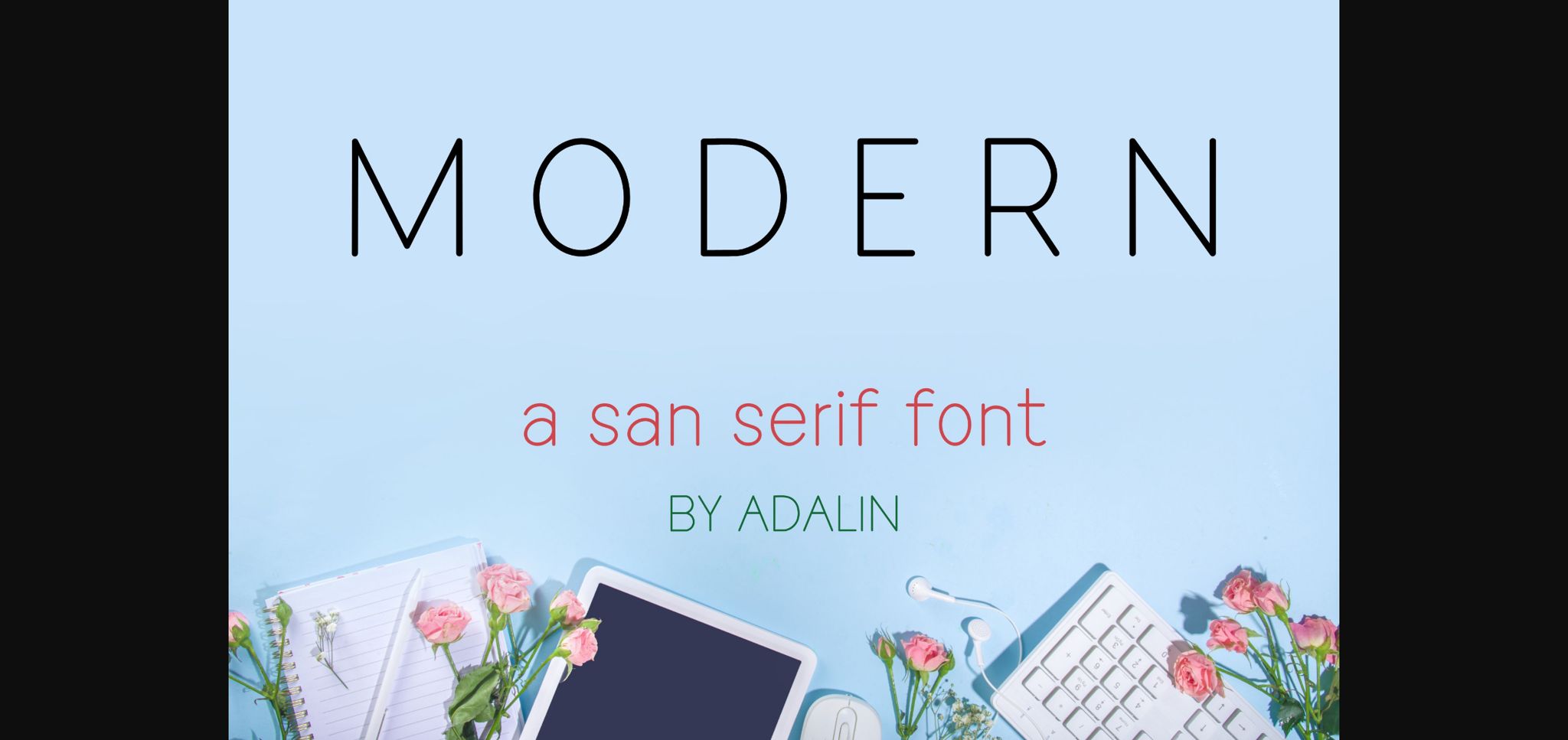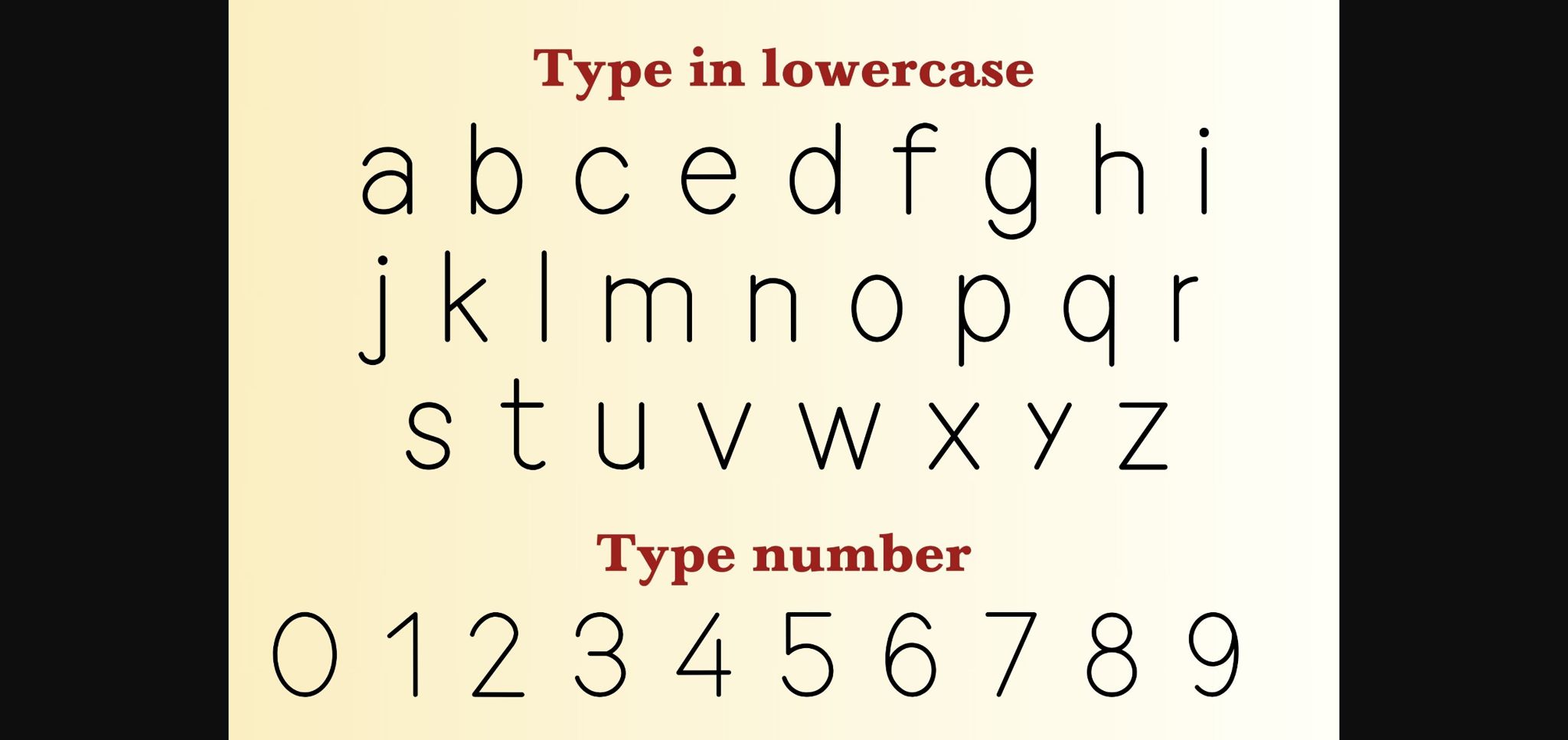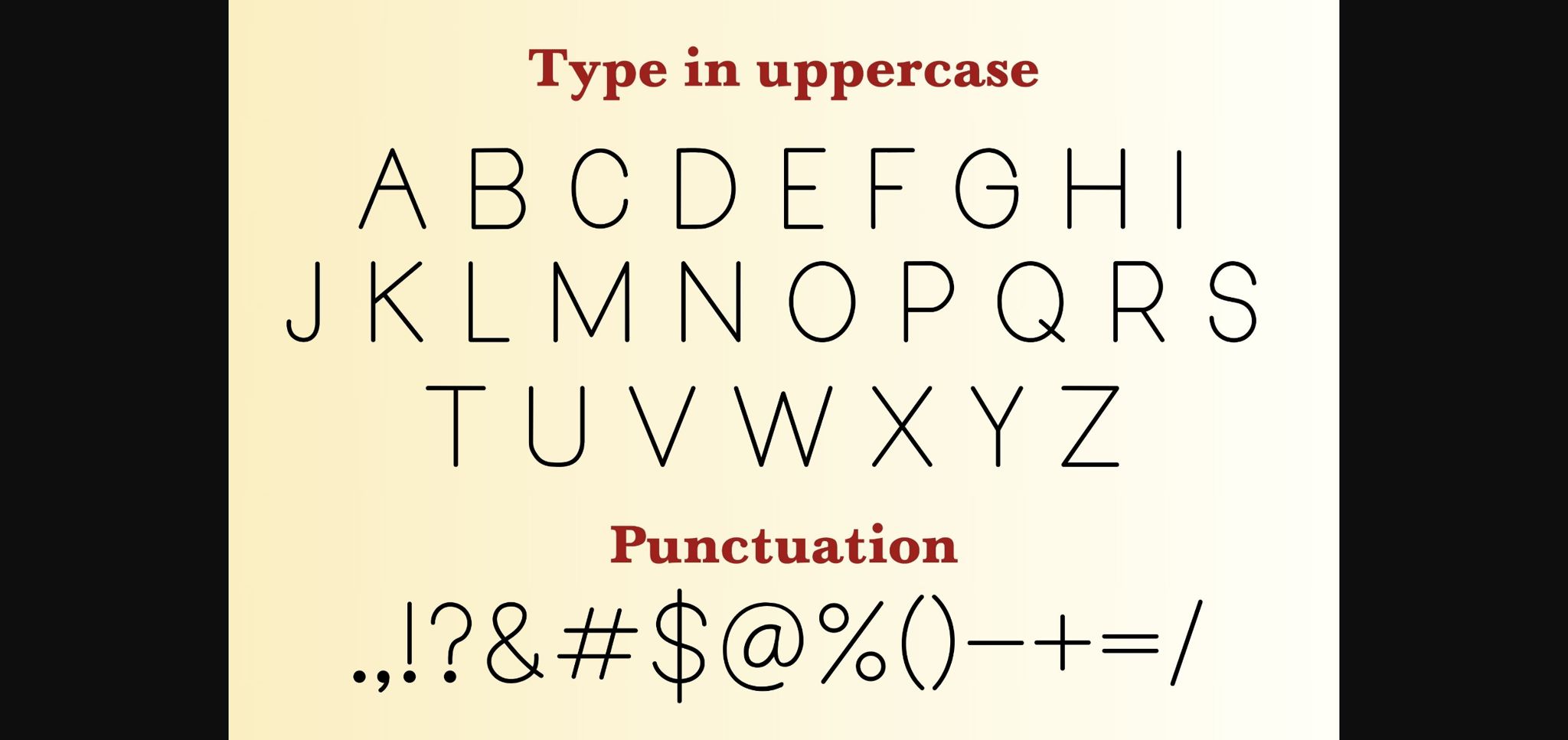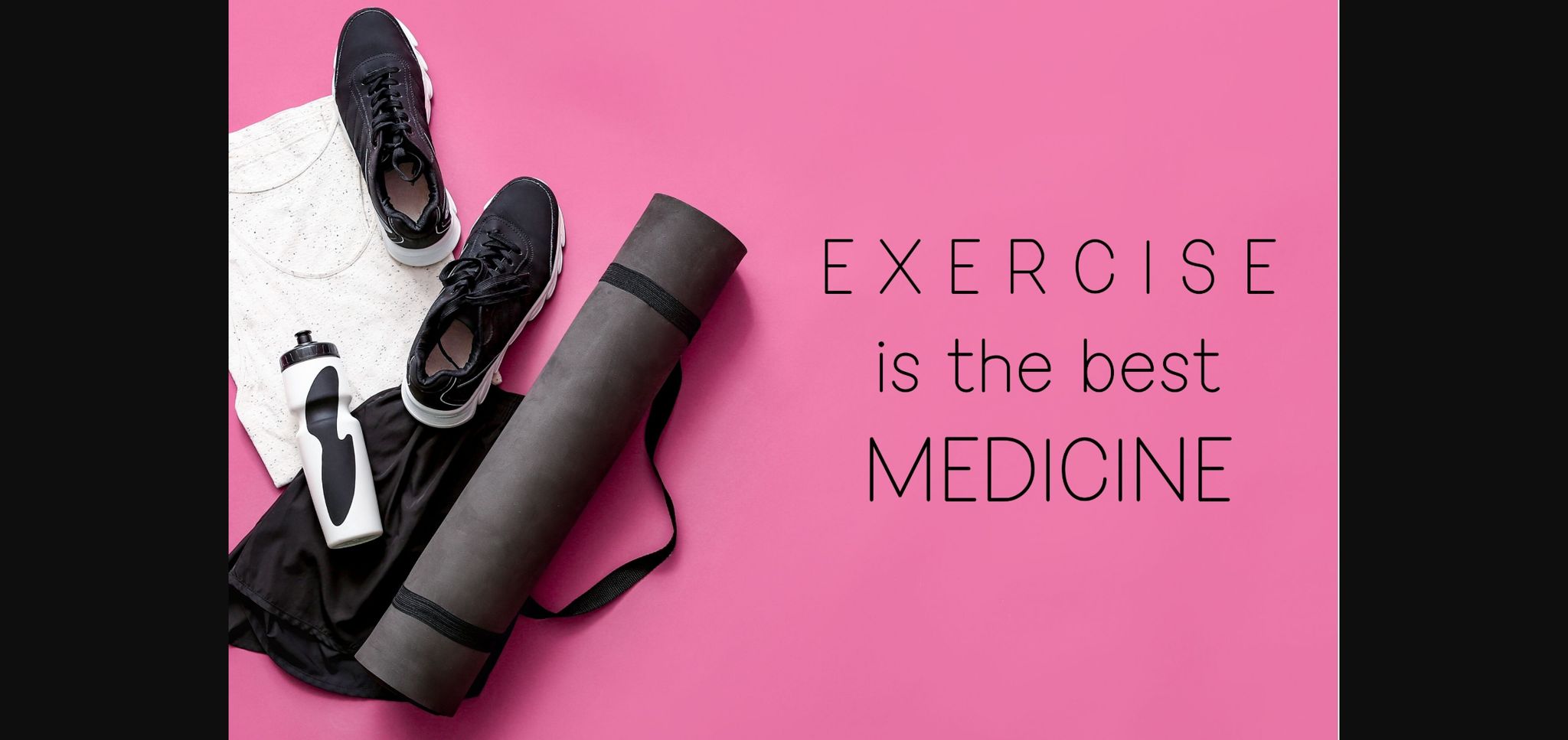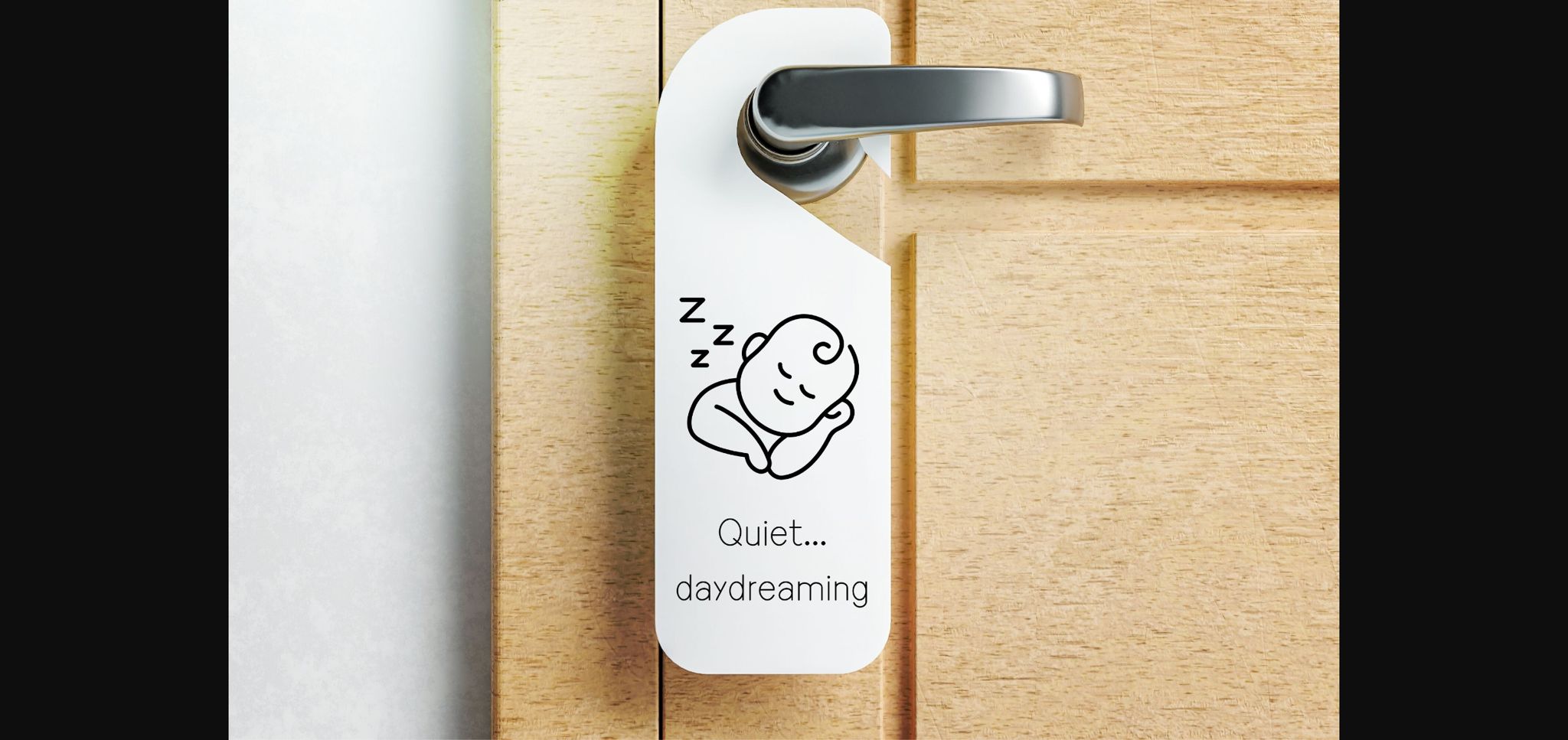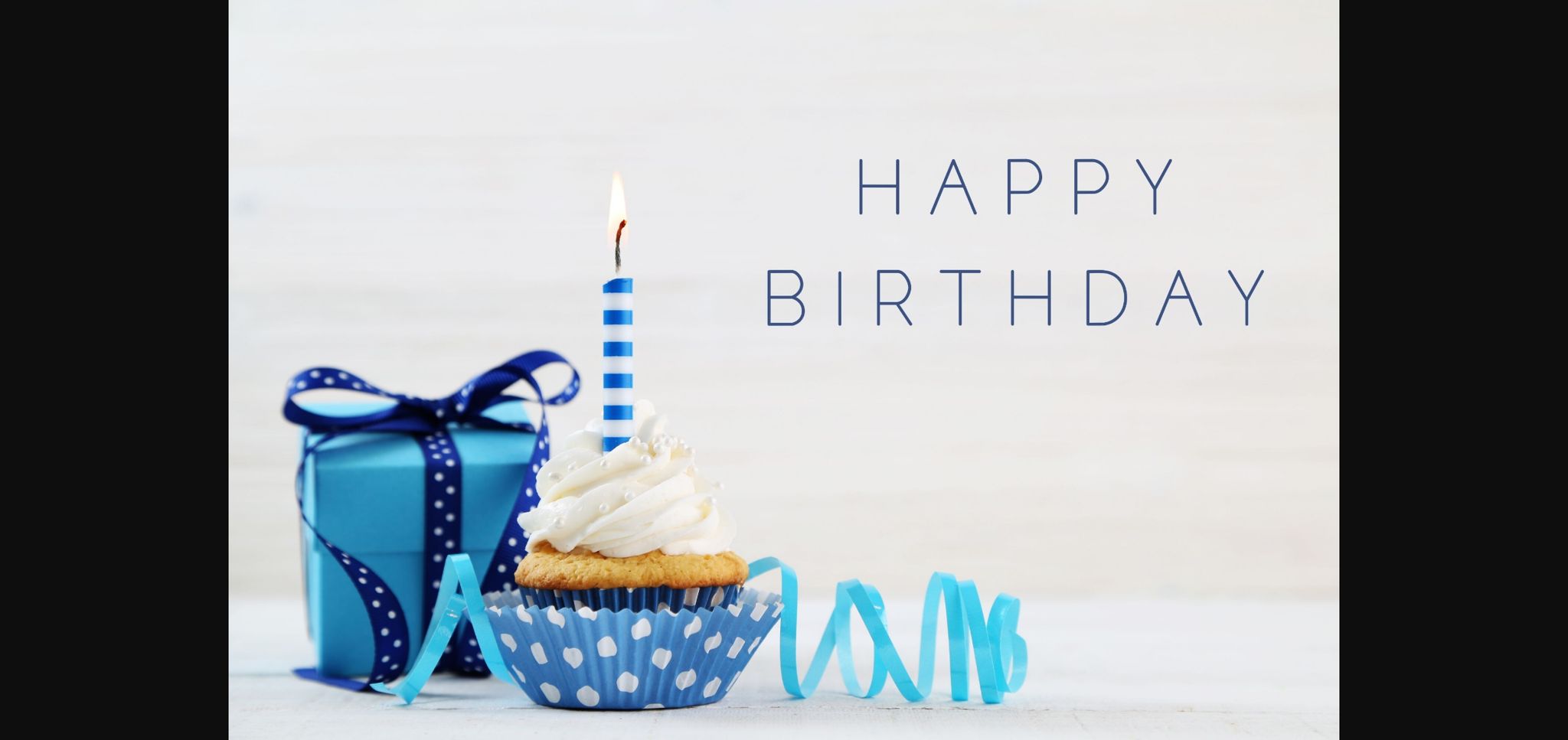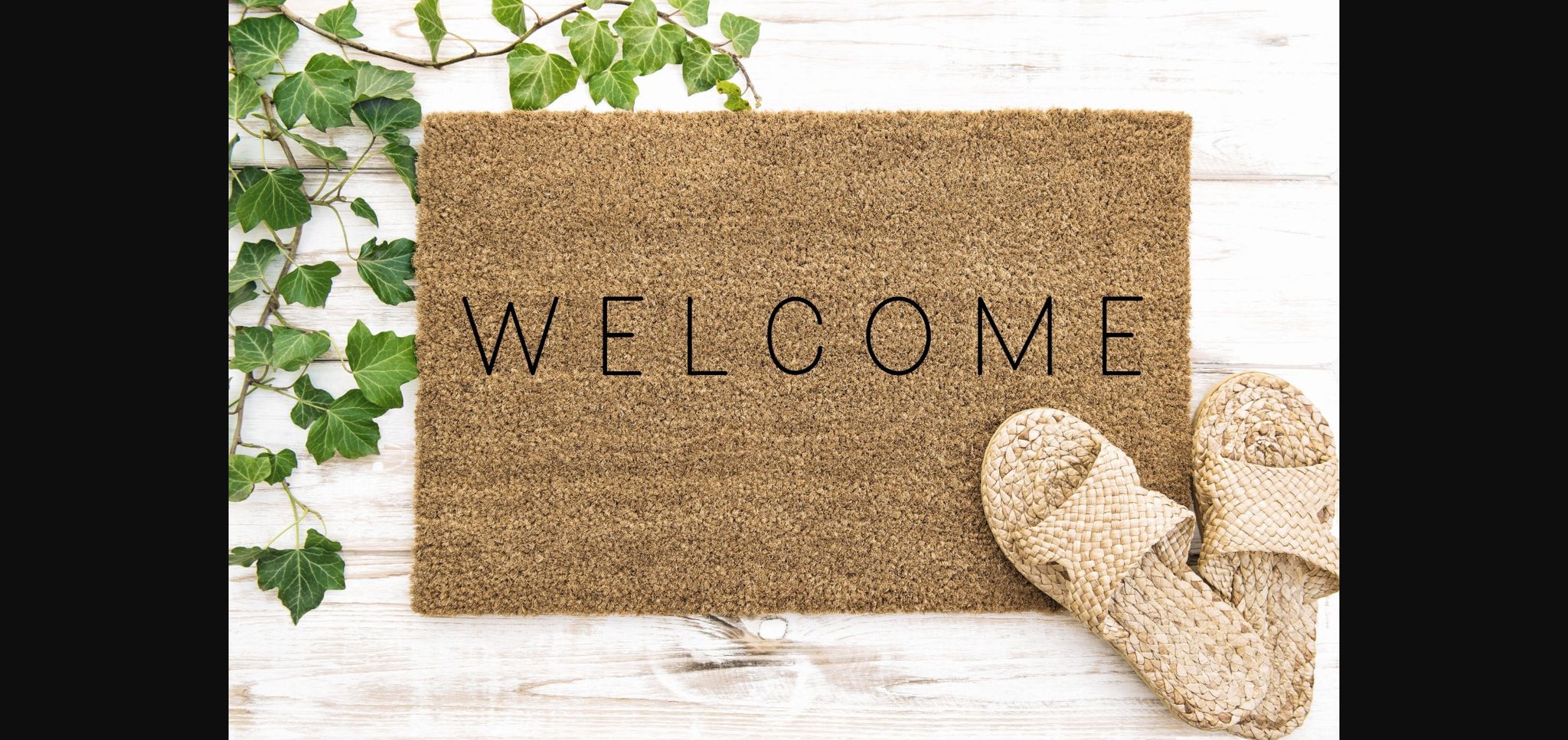
HomeSans Serif FontsModern Font Sans Serif Fonts Modern Font FacebookXPinterestWhatsApp 1 of 9 ... Modern Font Poster 2... Modern Font Poster 3... Modern Font Poster 4... Modern Font Poster 5... Modern Font Poster 6... Modern Font Poster 7... Modern Font Poster 8... Modern Font Poster 9... About Modern Font Modern San Serif is a sans serif font that can be used for any product including food products, beverages, office equipment, construction, clothes, shoes, and so much more. DOWNLOAD NOW People also explored Aurora Font Realistic Mock-ups on Vintage Background Balsamosca Font Jaqartall Font Tasty Popcorn Font Shine over Font Abasalom Font Alexis Font Small Things Font 310 0 TagsModernModern Font Previous articleGoodtime FontNext articleMilton Font LEAVE A REPLY Cancel reply Comment: Please enter your comment! Name:* Please enter your name here Email:* You have entered an incorrect email address! Please enter your email address here Website: Save my name, email, and website in this browser for the next time I comment. Personal Use Free Hatchill Personal Use Free Read more about this font Choco Shake Font Personal Use Free Read more about this font Stigma Font Personal Use Free Read more about this font Maharany Personal Use Free Read more about this font BLOG Free Fonts Risk: Why Free Fonts Can Be Dangerous for Designers Free Fonts Risk: Why Free Fonts Can Be Dangerous for Designers Using free fonts is a common practice in web and graphic design. However, the... How to Install and Use Fonts on Windows, macOS, and Web Projects Top 10 Handwritten Fonts That Elevate Your Designs Best Fonts for YouTube Videos: Make Your Thumbnails Stand Out